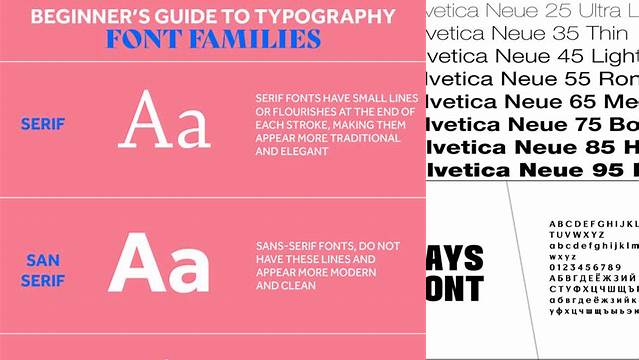
Find Free Font Families On Reddit: A Comprehensive Guide
Hey guys! Are you on the hunt for some awesome free font families? Look no further than Reddit! It's a goldmine for designers, creatives, and anyone who loves typography. In this comprehensive guide, we'll dive deep into the world of free fonts on Reddit, exploring where to find them, what to look for, and how to make the most of this fantastic resource. Whether you're working on a personal project, designing a website, or creating marketing materials, finding the right font can make all the difference. So, let's jump in and discover the treasures that await you in the Reddit font community!
Exploring Reddit for Free Fonts
Reddit, often called "the front page of the internet," is home to countless communities, or subreddits, dedicated to various topics. For font enthusiasts, this means there are several subreddits where users share, discuss, and even create free fonts. One of the most popular places to start your search is /r/fonts. This subreddit is a vibrant hub for all things typography, where you'll find discussions about font identification, font design, and, of course, free font resources. Members frequently post links to free font families, individual fonts, and font foundries offering free options. It's a fantastic place to stay updated on the latest freebies and hidden gems in the font world. Another great subreddit to explore is /r/typography, which focuses on the art and technique of typography. While not exclusively dedicated to free fonts, this community often shares valuable resources and insights related to font selection and usage. You might stumble upon discussions about font pairings, best practices for readability, and recommendations for specific types of projects. These insights can be incredibly helpful in choosing the right free font for your needs. In addition to these larger subreddits, there are also smaller, more niche communities that might cater to specific font styles or design aesthetics. For example, you might find subreddits dedicated to vintage fonts, handwritten fonts, or fonts suitable for coding. Don't be afraid to explore and use the Reddit search function to discover communities that align with your interests. When browsing Reddit for free fonts, it's essential to be an active participant. Engage with the community by asking questions, sharing your own discoveries, and providing feedback on fonts you've used. This not only helps you learn more about typography but also contributes to the collective knowledge of the community. Remember, Reddit thrives on user interaction, so the more you participate, the more you'll get out of it. One of the coolest aspects of using Reddit for font hunting is the direct interaction you can have with font designers. Many designers actively share their work on Reddit and are open to feedback and questions. This provides a unique opportunity to connect with creators, learn about their design process, and even request specific font features or modifications. It's a level of engagement you won't often find on traditional font websites or marketplaces. To maximize your Reddit font search, use relevant keywords and search terms. Try searching for specific font styles, such as "free sans-serif fonts," "free script fonts," or "free display fonts." You can also search for fonts suitable for particular projects, like "free fonts for websites" or "free fonts for logos." The more specific you are with your search, the more likely you are to find exactly what you're looking for. Finally, always be mindful of licensing terms when downloading free fonts from Reddit. While many fonts are genuinely free for commercial use, some may have restrictions. Pay close attention to the font's license agreement to ensure you're using it legally and ethically. When in doubt, it's always best to err on the side of caution and contact the font designer directly for clarification. Reddit offers a treasure trove of free fonts, but it's up to you to explore, engage, and utilize this resource effectively.
Top Free Font Families Shared on Reddit
So, what are some of the top free font families that have been shared on Reddit? Well, let's dive into some awesome examples that often pop up in discussions and recommendations. These fonts are not only popular among Reddit users but also widely used in various design projects around the world. First up is Inter, a versatile sans-serif font family designed by Rasmus Andersson. Inter is known for its clean, modern aesthetic and excellent readability, making it a fantastic choice for web design, UI design, and print projects. Its extensive character set and multiple weights provide a lot of flexibility, allowing you to use it in various contexts. The Inter font family has gained a massive following on Reddit, with many users praising its versatility and professional appearance. Next on our list is Open Sans, a humanist sans-serif typeface designed by Steve Matteson. Open Sans is another incredibly popular choice, celebrated for its neutral yet friendly appearance. It's highly readable in both print and digital formats, making it suitable for a wide range of applications. On Reddit, Open Sans is often recommended for body text, headings, and UI elements. Its clean lines and balanced proportions make it a reliable and versatile option for any design project. Another standout font family is Roboto, designed by Christian Robertson. Roboto is a modern sans-serif font that combines mechanical and geometric forms, resulting in a typeface that is both functional and visually appealing. It's widely used in Android's operating system and Google products, which speaks to its quality and versatility. Reddit users often recommend Roboto for its clarity and readability, especially in digital environments. It's a great choice for websites, apps, and other digital interfaces. If you're looking for a classic serif font, Merriweather is an excellent option. Designed by Sorkin Type, Merriweather is specifically optimized for on-screen reading, making it ideal for websites and blogs. It has a sturdy character design with slightly condensed letterforms, which creates a comfortable reading experience. Merriweather is a popular choice among Reddit users for its elegance and readability, especially for long-form content. For a more unique and playful option, consider Montserrat. Designed by Julieta Ulanovsky, Montserrat is a geometric sans-serif font inspired by the urban typography of Buenos Aires. It has a distinctive and stylish appearance that makes it stand out. Montserrat is frequently recommended on Reddit for its versatility and ability to add personality to designs. It works well for headings, logos, and branding materials. In addition to these widely known fonts, Reddit is also a great place to discover lesser-known gems. Font designers often share their creations on Reddit, providing a platform for unique and high-quality fonts to gain recognition. By exploring Reddit, you might stumble upon a hidden treasure that perfectly fits your project's needs. Remember, when choosing a font family, it's essential to consider your project's specific requirements and target audience. A font that works well for one project might not be the best choice for another. Factors like readability, style, and overall tone should influence your decision. Reddit can be an invaluable resource for gathering opinions and recommendations from fellow designers and font enthusiasts. By engaging with the community and exploring the various subreddits dedicated to typography, you can discover a wealth of free font families that will elevate your designs. So, next time you're on the hunt for the perfect font, don't forget to check out what Reddit has to offer!
How to Identify Fonts You Find on Reddit
Okay, so you've stumbled upon an awesome design on Reddit and you're totally digging the font. But how do you figure out what it is? Don't worry, guys, there are some fantastic tools and techniques you can use to identify fonts you find on Reddit and beyond. Knowing how to identify fonts can be a game-changer for your design workflow, allowing you to replicate styles, find similar options, and generally expand your typographic knowledge. One of the most popular and effective methods for font identification is using online font identification tools. These tools allow you to upload an image of the text and then analyze the image to find potential matches. One of the go-to options is WhatTheFont! by MyFonts. WhatTheFont! is a free tool that uses advanced algorithms to analyze the shapes of the letters in your image and compare them to a vast database of fonts. It's incredibly user-friendly and often provides accurate results. To use WhatTheFont!, simply upload your image, highlight the text you want to identify, and let the tool do its magic. It will then present you with a list of fonts that closely match the letters in your image. Another excellent font identification tool is Font Squirrel's Matcherator. Matcherator is similar to WhatTheFont! in that it allows you to upload an image and identify fonts. However, Matcherator focuses specifically on free fonts, which can be a significant advantage if you're working on a project with a limited budget. To use Matcherator, upload your image, crop it to the text you want to identify, and the tool will provide a list of free fonts that match. In addition to these online tools, there are also browser extensions that can help you identify fonts directly on websites. Extensions like Fontface Ninja allow you to hover over text on a webpage and instantly see the font name, size, and other details. This can be incredibly convenient for identifying fonts on Reddit posts, comments, or linked websites. Fontface Ninja is a free extension available for Chrome, Safari, and Firefox. It's a valuable tool for designers, developers, and anyone who wants to easily identify fonts they encounter online. Another helpful technique for font identification is to use reverse image search. If you find an image on Reddit with a font you like, you can use Google Images or TinEye to search for similar images. Often, the image source or related websites will mention the font used in the design. This method can be particularly effective if the image is from a professional design project or website. Sometimes, identifying a font requires a bit of detective work and a combination of different methods. If an online tool doesn't provide an exact match, try using different images or cropping the image in various ways. You can also try searching for fonts that are similar in style or characteristics. For example, if you know the font is a sans-serif with a geometric design, you can search for "geometric sans-serif fonts" to narrow down your options. Don't underestimate the power of community knowledge when it comes to font identification. Reddit itself can be a valuable resource for seeking help. If you're struggling to identify a font, you can post the image in a relevant subreddit, such as /r/identifythisfont, and ask for assistance. The members of these communities are often highly knowledgeable about typography and can quickly identify fonts based on their characteristics. When posting a font identification request, be sure to provide a clear image of the text and any relevant information you have about the source or context. The more information you provide, the easier it will be for others to help you. Identifying fonts is a valuable skill for any designer or creative professional. By mastering the tools and techniques discussed above, you can confidently identify fonts you find on Reddit and use that knowledge to enhance your own designs. So, go ahead and explore the world of typography and start uncovering the fonts that inspire you!
Conclusion: Your Font Adventure Awaits!
In conclusion, diving into the world of free font families on Reddit can be an incredibly rewarding adventure. You've got a massive community of font enthusiasts, designers, and creators all sharing their knowledge and resources. From exploring various subreddits to identifying fonts and understanding licensing, you're now equipped to navigate the vast landscape of free typography like a pro. Remember, Reddit is a dynamic and ever-evolving platform, so there's always something new to discover. Stay curious, keep exploring, and don't hesitate to engage with the community. Whether you're working on a website, a branding project, or any other design endeavor, the perfect font is out there waiting to be found. So, go forth, explore the Reddit fontiverse, and unleash your creativity with the awesome free fonts you'll uncover! Happy font hunting, guys!